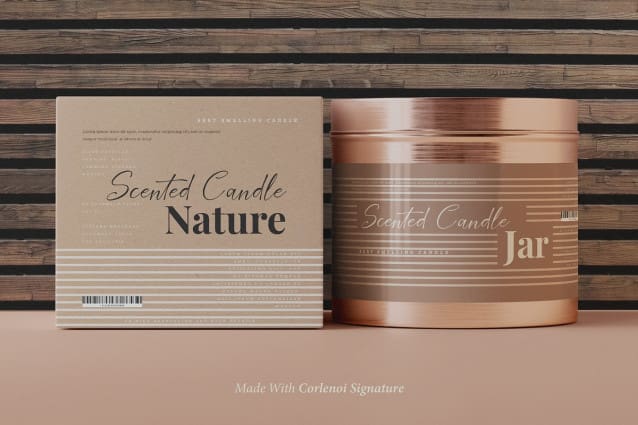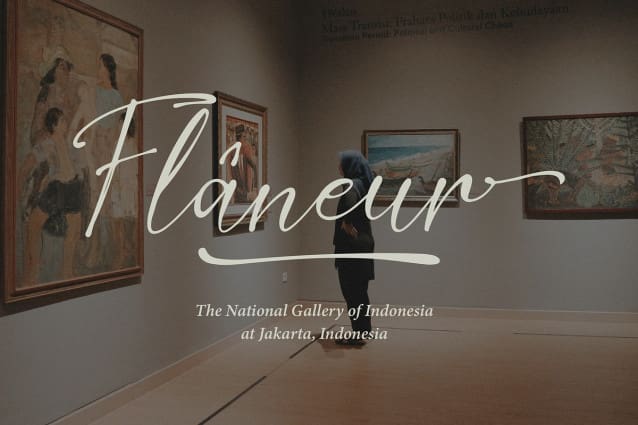
Corlenois Signature Font
Corlenois Signature Font | Signature Font, from Gracetypestudio, suitable for any projects such as: logos, branding projects, homeware designs, product packaging, mugs, quotes, posters, shopping bags, t-shirts, book covers, name card, invitation cards, greeting cards, label, photography, watermark, special events, and all your other lovely projects that need a Signature Font taste.